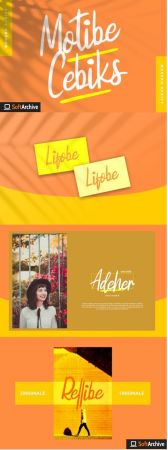
Motibe Cebiks is a sweet and flowing handwritten font. It looks lovely on wedding invitations, thank you cards, quotes, greeting cards, logos, business cards and every other design which needs a handwritten touch.